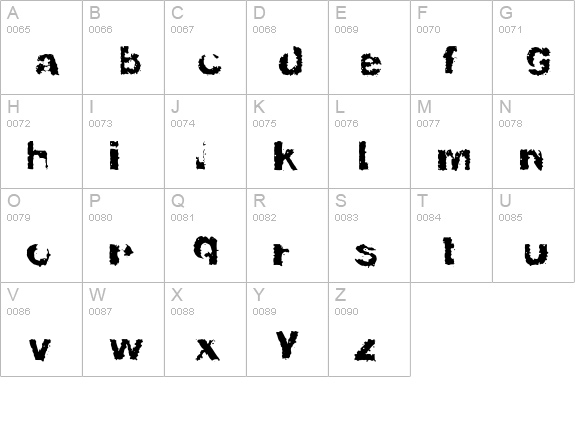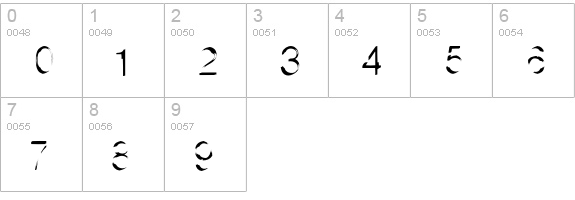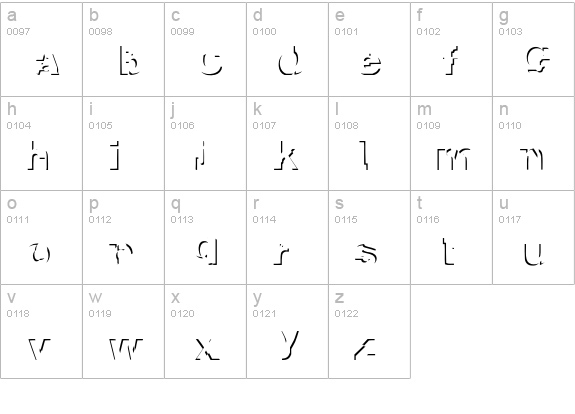
InternationalDisgrace-ValRe Font Details
Introducing InternationalDisgrace-ValRe, a striking and bold font that will captivate and mesmerize your audience. With its unique design and impeccable attention to detail, this font is perfect for making a statement and leaving a lasting impression. InternationalDisgrace-ValRe boasts a timeless and sophisticated style that exudes confidence and elegance. Its strong and defined characters create an unforgettable visual impact, making it the perfect choice for branding, advertising, title designs, and more. But what sets InternationalDisgrace-ValRe apart from the rest is its availability as a free download. That's right, you can now access this incredible font without any cost involved. Simply visit FontsMarket.com and unlock the endless possibilities that this font has to offer. Whether you're a graphic designer, a marketer, or an individual looking to add a touch of creativity to your projects, InternationalDisgrace-ValRe is here to elevate your work to new heights. Its versatility allows it to be used in various contexts, from print to digital media, ensuring that your message will be conveyed with utmost clarity and impact. So don't miss out on this opportunity to enhance your designs with InternationalDisgrace-ValRe. Download it for free at FontsMarket.com and experience the power and beauty of this remarkable font.